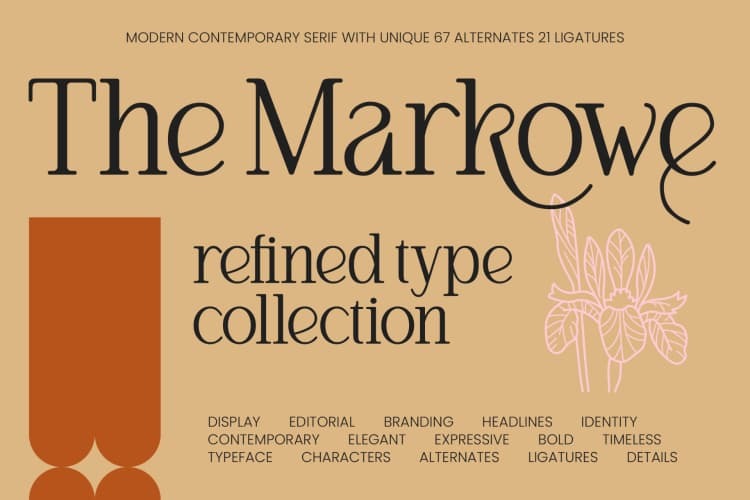
The Markowe – Modern Serif Font
The Markowe – Modern Serif Font, a typeface that embodies the perfect balance of classical elegance and modern sophistication. Designed for creators who demand distinction and refinement, this font captures the essence of timeless luxury while maintaining a fresh, contemporary aesthetic. Whether you are crafting a high-end brand identity or a sophisticated editorial layout, The Markowe – Modern Contemporary Serif provides the visual impact necessary to stand out in a competitive market.
Unleash your artistic potential using the expressive alternates and unique ligatures included in this refined type collection. Featuring 67 unique alternates and 21 ligatures, The Markowe – Modern Contemporary Serif offers unparalleled flexibility for custom typography. Its high-contrast strokes and delicate serifs create a rhythmic flow that is both legible and decorative, ensuring your headlines possess a bold, authoritative presence that commands attention immediately.
Expand your brand’s reach with a typeface designed for unlimited global impact and visual consistency. With its extensive multilingual support, The Markowe – Modern Contemporary Serif adapts seamlessly across global markets, making it incredibly versatile for international projects. This global adaptability ensures that your message remains visually striking regardless of linguistic boundaries, providing a cohesive identity for cosmopolitan audiences and world-class brands.
Discover the ideal application for this premium font in the worlds of luxury branding, packaging, and editorial design. The Markowe – Modern Contemporary Serif is perfect for creating memorable logos, chic mastheads, and sophisticated advertising campaigns that require a touch of haute couture. By choosing this versatile design asset, you effortlessly elevate lifestyle photography, invitation suites, and upscale marketing materials to a professional standard.